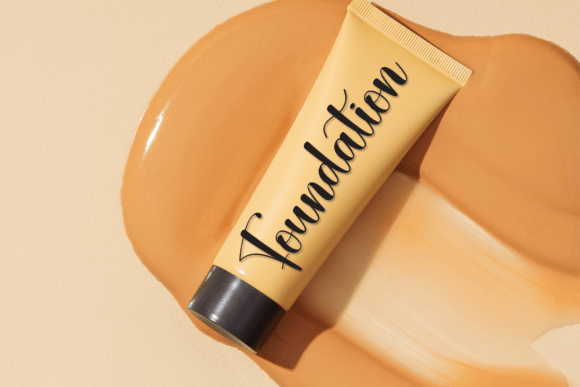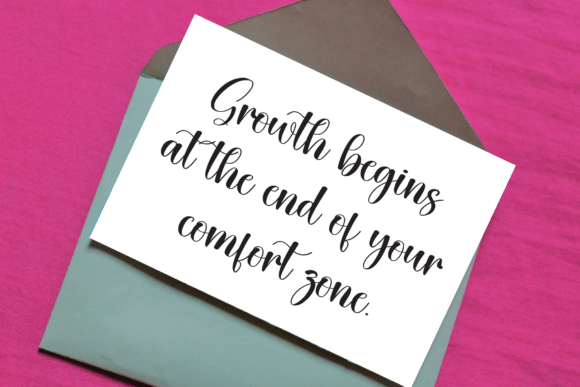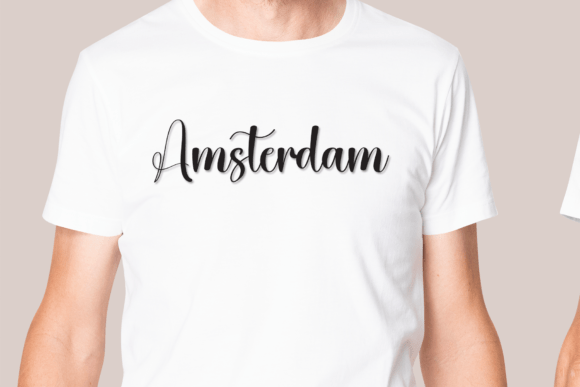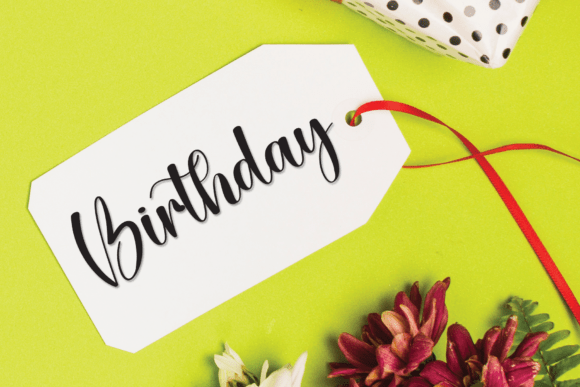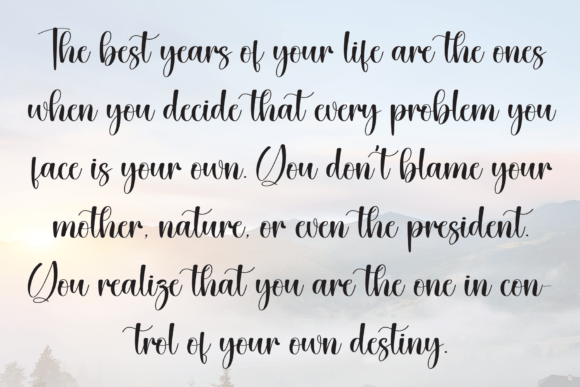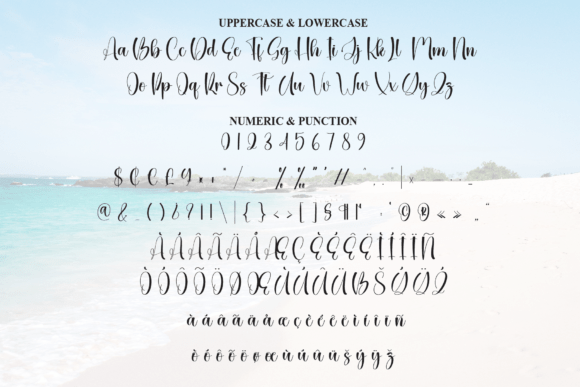
Getting Inspired on a Lazy Saturday
There’s something magical about a lazy Saturday morning, sipping coffee by the beach, and feeling the creative juices flowing. The sound of the waves, the warmth of the sun, and the freedom to let your imagination run wild – it’s the perfect setting to get inspired and bring your design ideas to life. For many designers, this is where the magic happens, and the right font can make all the difference.
Enter Beach Saturday Font, a stylish script font that embodies the carefree spirit of a lazy Saturday. This beautiful font features flowing strokes, graceful curves, and expressive letterforms that capture the essence of hand-drawn calligraphy with a modern twist. Whether you’re designing a logo, invitation, or social media graphic, the Beach Saturday Font adds an artistic and sophisticated touch that elevates your work to the next level.
Beach Saturday Font Key Features
- Size: The font family consists of multiple weights, including Thin, Light, Regular, Medium, Bold, and Heavy, each with its own unique characteristics and usage.
- Unique Characteristics: This font features a unique blend of modern and vintage elements, with subtle texture and imperfections that evoke a sense of nostalgia and relaxation.
Beach Saturday Font Review
Overall, I think the Beach Saturday font is a lovely addition to any design project. It’s perfect for creating a relaxed, summer vibe. ✨ The font’s friendly and approachable nature makes it a great choice for branding, advertising, and other promotional materials.
- Warm and inviting feel
- Great for creating a sense of relaxation and leisure
- Perfect for use in outdoor and beach-themed designs
- Works well in both display and text settings
- May not be suitable for formal or professional designs
- Can be a bit too casual for some audiences
- Lacks a strong, unique personality
- May not stand out in crowded design spaces
Overall, I think the Beach Saturday font is a solid choice for designers looking to create a laid-back, summer vibe. While it may not be the most unique or exciting font, it’s a reliable and versatile option that can add a touch of warmth to any design project. ⚠️ Just be sure to consider your audience and the tone you’re trying to convey.
Use the Beach Saturday Font for casual, beach-inspired designs, such as summer-themed invitations, beach party flyers, or surf-inspired posters. To get the most out of this font, pair it with other beach-inspired elements, such as palm trees, seashells, or sunglasses. Experiment with different font combinations and styles to create a unique and eye-catching design.
For best results, use the Beach Saturday Font in conjunction with a clean and simple design. Avoid cluttering the design with too many elements, as this can make the font difficult to read. Use the font to add a touch of whimsy and fun to your design, and don’t be afraid to experiment with different font sizes and styles.